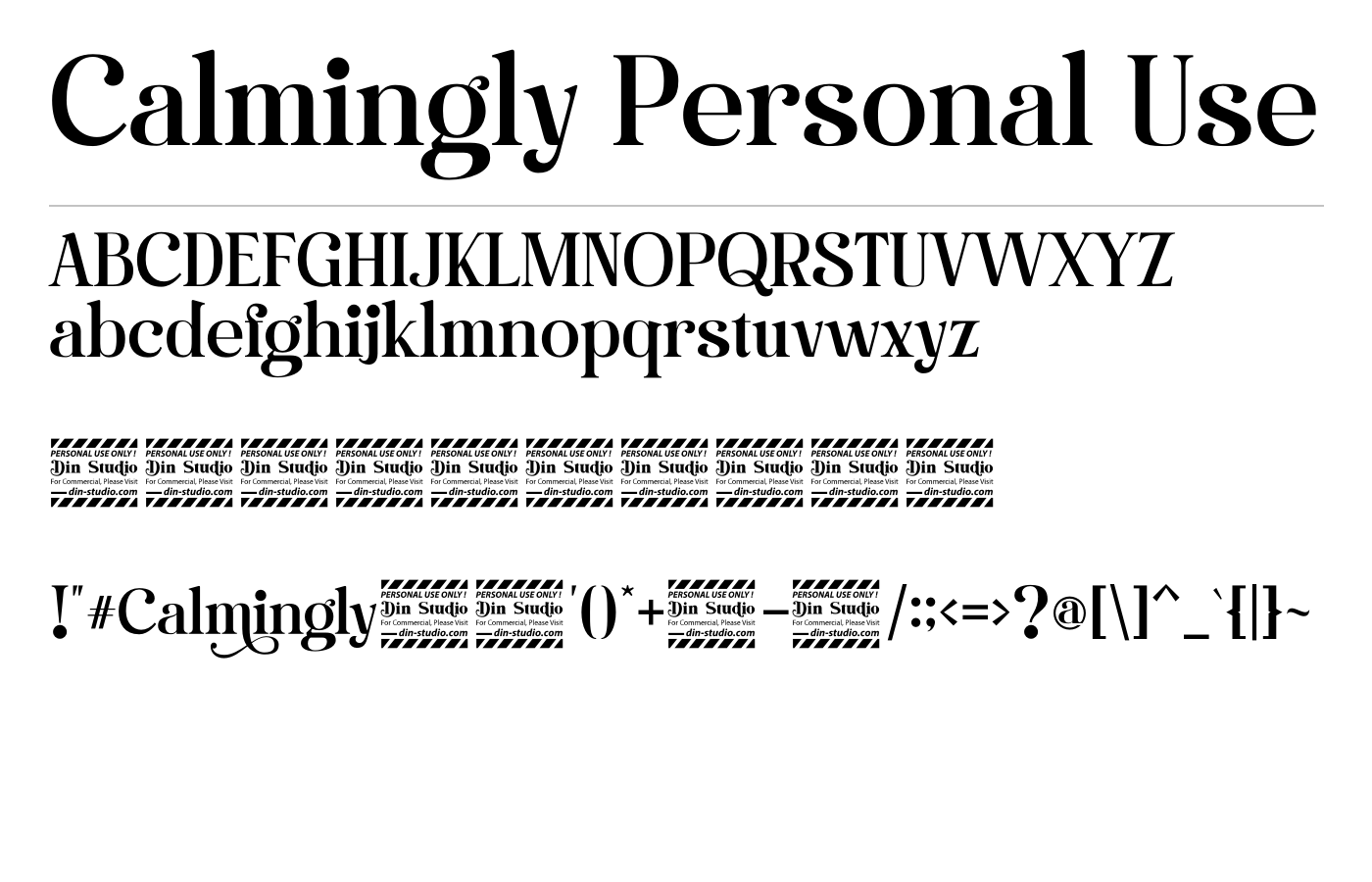
Calmingly Personal Use is a refined serif font with a modern Didone style, featuring high contrast between thick and thin strokes and elegant, bracketed serifs. Its classic letterforms with distinctive details like the double-story 'g' and curved tail on the 'Q' give it a sophisticated yet approachable personality, making it ideal for luxury branding, editorial design, and stylish headlines. This font works beautifully in contexts where elegance and clarity are key, adding a touch of timeless charm to any project.
Calmingly Personal Use Font
About Calmingly Personal Use Font